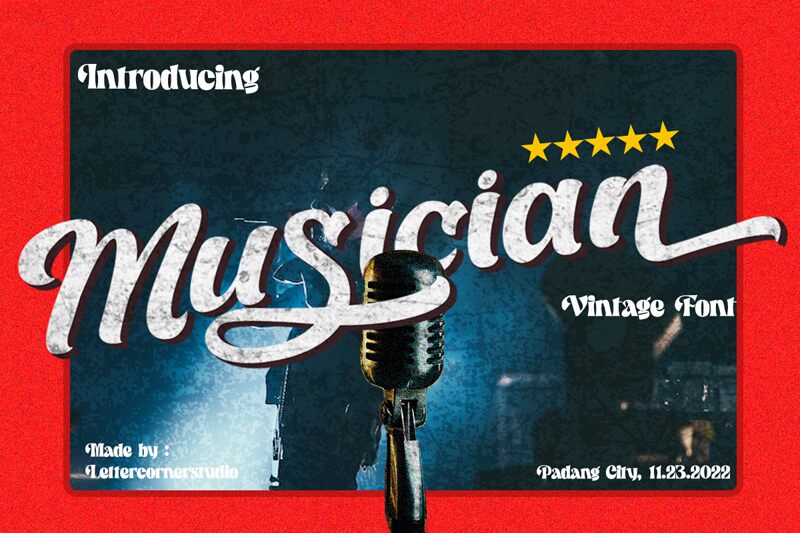
Musician Demo
Musician font by Mocha Frappuccino is a free brush font with bold letters. The vintage-inspired design possesses an elegant and sophisticated appearance. It has expressive calligraphic curves and an overall flowing style which looks great in titles and logos.
Use this versatile font in labels, packaging, branding, product design, invitations, postcards, magazines covers and titles. It will also fit equally well in many other creative applications whether digital or printed.